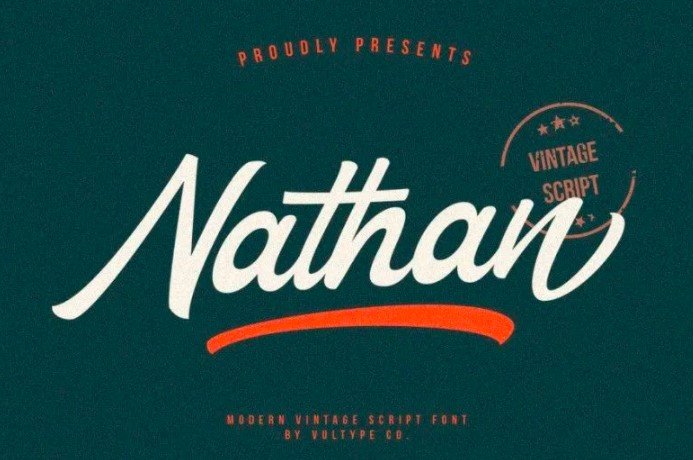
Presenting the exceptional typeface, Nathan Vintage Script, crafted with inspiration drawn from retro-style typefaces and vintage fonts.
Each and every character of this great font that can works great with poppins font contains the perfection in its own and having consistency in all of its characters. It all combines together and provided you the beautiful unique designs.
It also support multilingual and having more than 203 glyphs, characters and ligatures. Also, it contains 2 unique styles bold, and italic styles.
Of course you can use the Nathan Vintage Script for your logo as well as all other graphic designs projects.